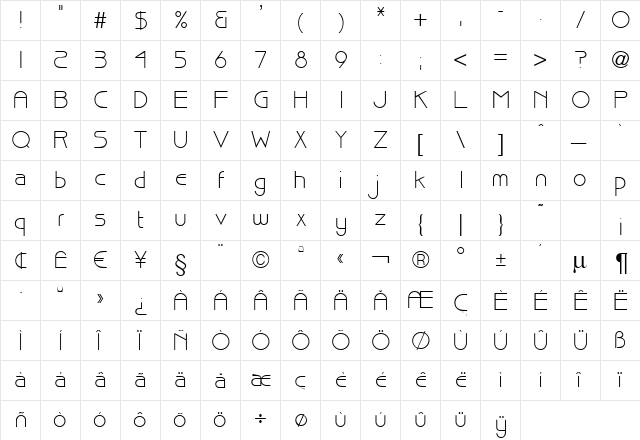
B733-Deco Regular
Design Context for B733-Deco Typeface
B733-Deco offers clean, dependable letterforms without strong stylistic allegiance, making it a practical choice for designers who need flexibility.